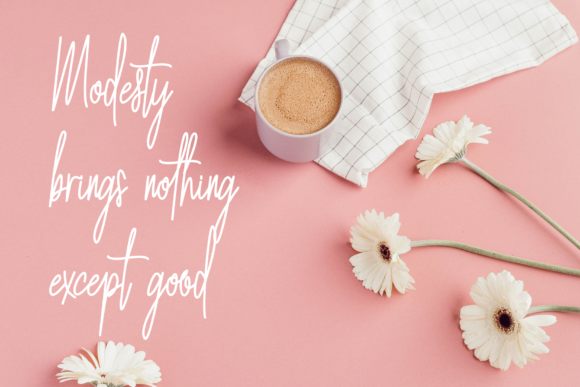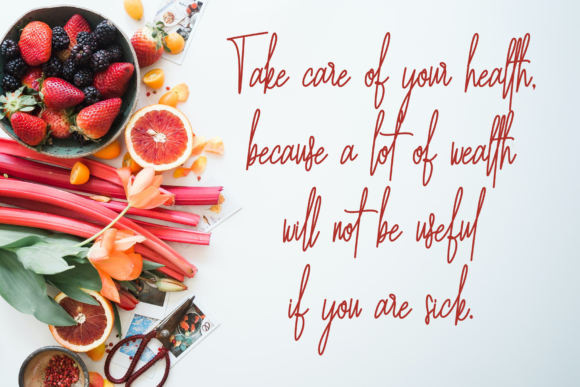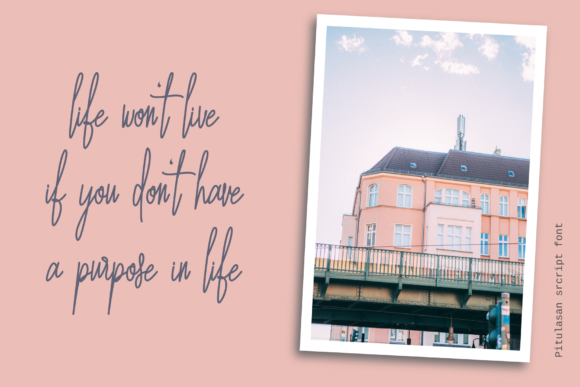
Introduction to Pitulasan Font
Pitulasan is a simple and flowing handwritten font.
This adaptable font will look great on a variety of design ideas Pitulasan is PUA encoded which means you can access all of the glyphs and swashes with ease.
Key Features of Pitulasan Font